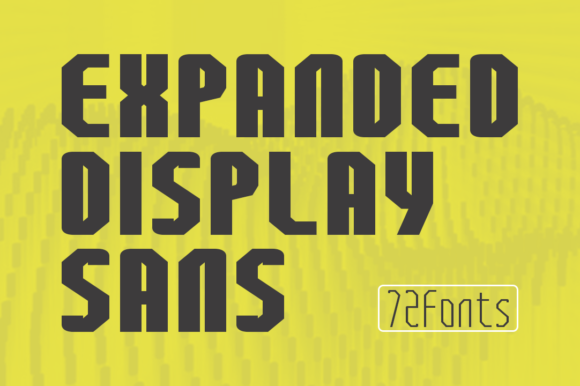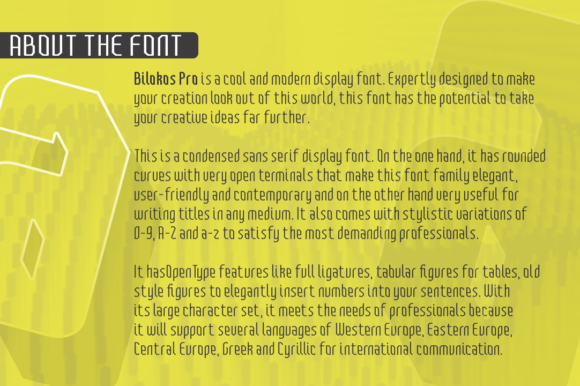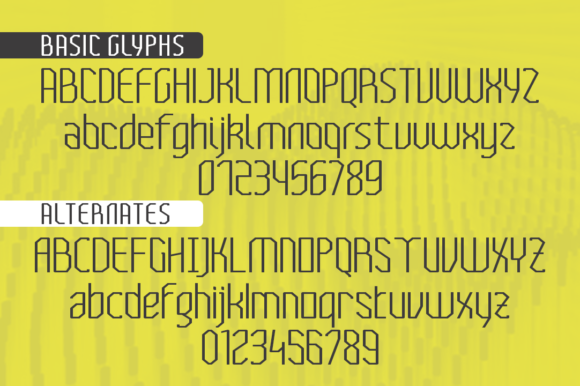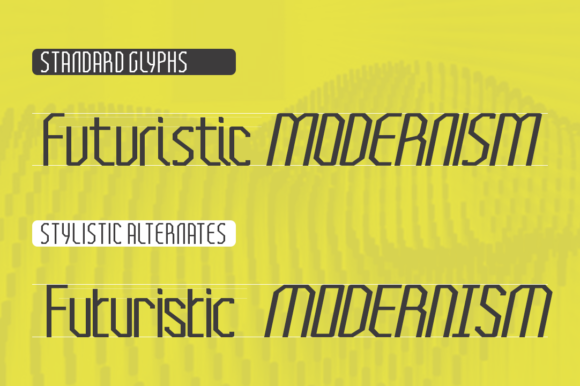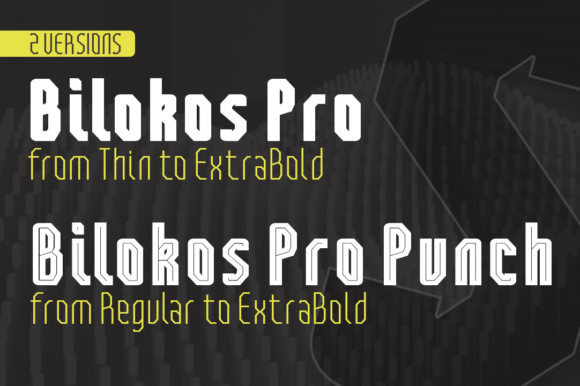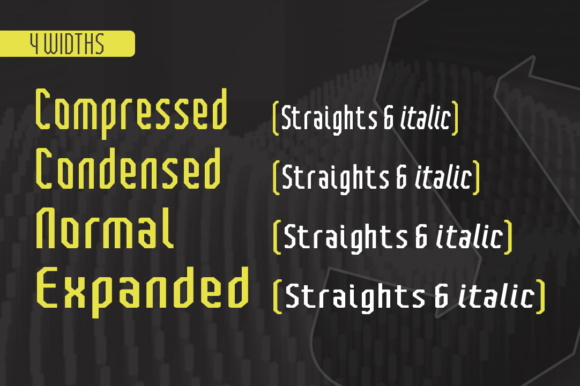
The Perfect Font to Elevate Your Creations
Have you ever stared at a blank canvas, trying to find the perfect font to bring your vision to life? That’s a feeling many designers know all too well. But what if you could tap into a font that’s bold, eye-catching, and versatile enough to elevate any project? That’s where the Bilokos Font comes in – a display font that’s about to become your new best friend.
This font is more than just a pretty face; it’s a powerful tool that can add depth, personality, and style to your designs. Whether you’re working on a branding project, a social media campaign, or a poster for a music festival, the Bilokos Font has the potential to take your creations to the next level. With its bold and modern aesthetic, this font is a valuable asset for any designer looking to make a statement.
Bilokos Font Key Features
- Font Family: Bilokos is a sans-serif font family that offers a unique blend of modern and minimalist design.
- Size: Bilokos Font family consists of 6 weights, ranging from Thin (100) to Black (900), providing flexibility for various design applications.
- Resolution: Designed for high-resolution displays, Bilokos Font is optimized for use in digital media, including web, mobile, and print applications.
- Unique Characteristics: Bilokos Font features a distinctive, rounded edge design that sets it apart from other sans-serif fonts, making it ideal for modern branding and design projects.
- Language Support: Bilokos Font supports a wide range of languages, including Latin, Cyrillic, and Greek scripts, making it a versatile choice for global design projects.
Bilokos Font Review
Overall, I think Bilokos is a solid choice for designers looking for a sans-serif font. It has a clean and modern aesthetic that works well in various contexts.
- Clear and readable: Bilokos has a clear and legible design, making it perfect for body text.
- Modern feel: The font’s modern aesthetic makes it a great choice for contemporary designs.
- High x-height: The high x-height of Bilokos makes it more readable, especially in smaller font sizes.
- Lack of character: Bilokos is a fairly generic font and lacks the character and personality that some other fonts have.
- Not ideal for titles: While Bilokos works well for body text, it’s not the most effective choice for titles or headings.
Overall, I think Bilokos is a decent choice for designers, but it’s not particularly memorable or impactful. If you’re looking for a clean and modern font for body text, Bilokos might be worth considering. However, if you’re looking for something more unique or attention-grabbing, you might want to look elsewhere.
Bilokos Font Practical Application Guide
To get the most out of Bilokos Font, use it for creative projects that require a unique and eye-catching font. Common use cases include:
– Branding materials
– Print advertisements
– Digital art projects